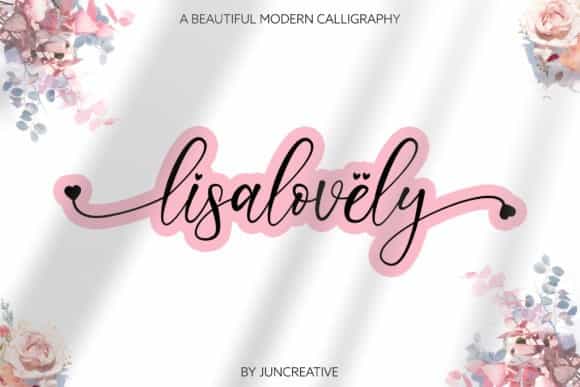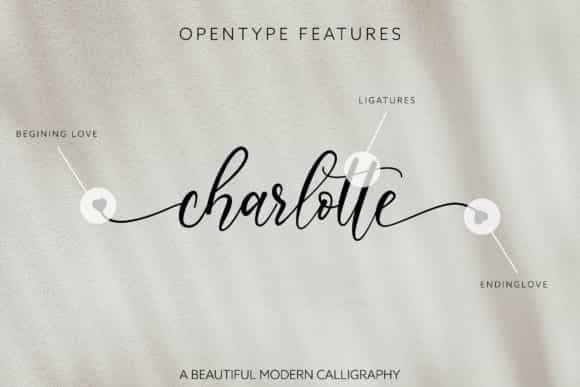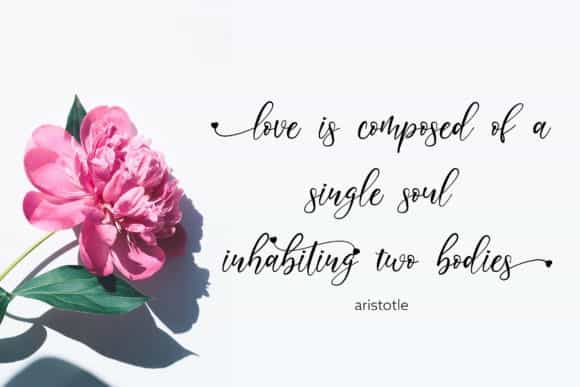
Lisalovely is a Calligraphy chick font with extraordinary accents. It is the best for branding, wedding invitations and invitation cards and a lot of other things. Font has a full set of beautiful uppercase and lowercase letters, numbers, a lot of punctuation marks ligatures & cute swashes.